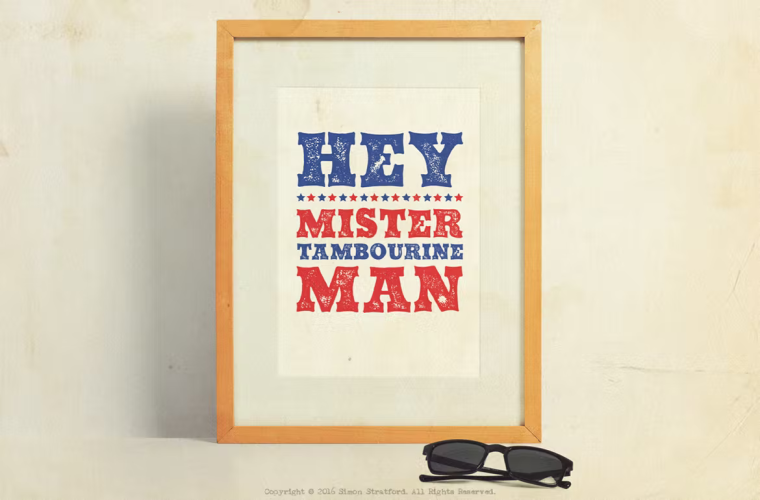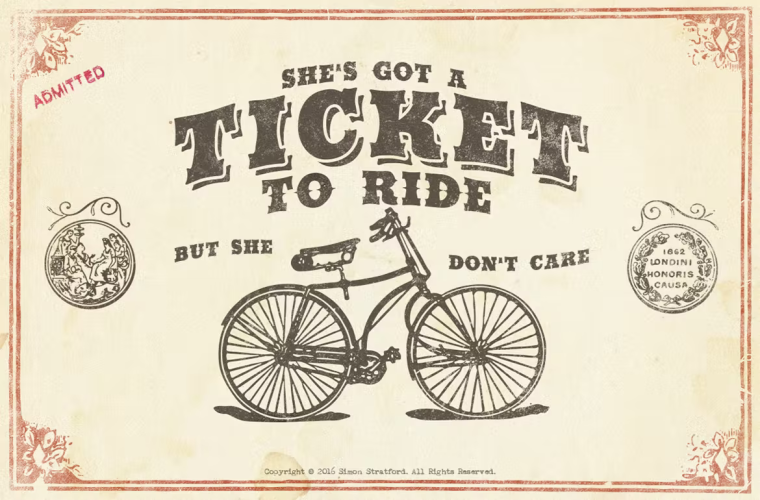
Lawless Font
I started creating Lawless over a year ago, drawing it directly into adobe illustrator. I never finished it owing to the fact that I accidentally deleted the file.
Yes, it did make me want to punch myself in the face—repeatedly. I was so pissed I canned the project.
Until now.
I resurrected the idea but took it in a slightly different direction. Rather than uber clean lines, I decided to draw it with a pencil. Then let illustrator take the strain converting it to a font.
Inspired by the early American wood type of the 1800’s. It’s bold and brash and is the ideal typeface to get that vintage wild west look and feel.
Lawless comes in 4 different styles Regular, Grunge, Spur and Shadow. Easily mix and match them to get the look you’re after.
Reports, white papers and book interiors hold the eye longer when the text face has real serifs; Lawless Font keeps that rhythm without looking old-fashioned.
Food, spirits and cosmetics brands lean on serif wordmarks to suggest age and care. Lawless Font gives that signal at wordmark size.
Set Lawless Font for the body of an award or a diploma and keep the recipient name in a script; the pairing is what makes a document feel official.
It sits in the Serif Fonts group and reads as bold, clean, serif, serif fonts. That makes it a candidate wherever those qualities help: headings, packaging, social graphics and brand work. Set it at the size you plan to use before deciding.